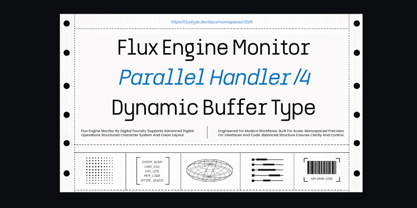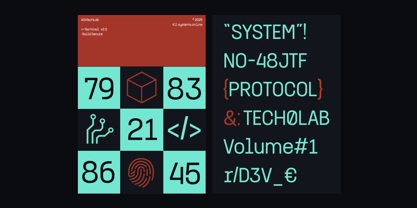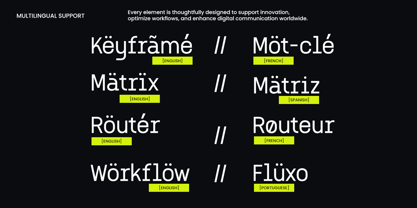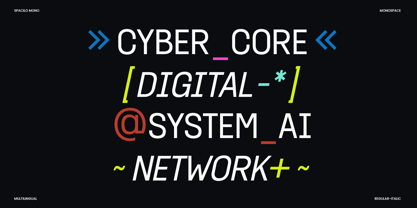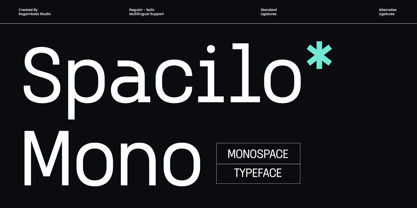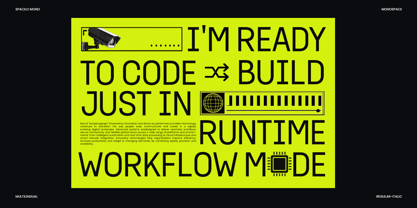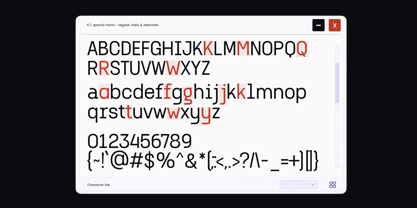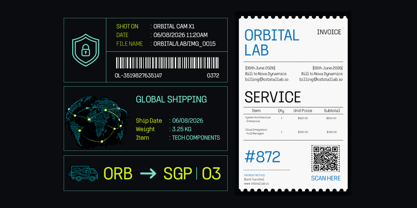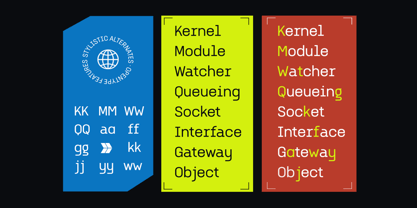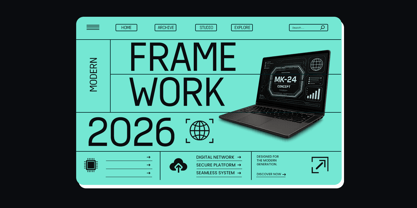
Spacilo Mono
Spacilo Mono is a contemporary monospace typeface crafted for designers, developers, and creative brands that demand precision with personality. Featuring clean geometric proportions, balanced spacing, and functional details, it delivers a modern coding aesthetic while remaining highly versatile for editorial and branding projects. The combination of Regular and Italic styles, multilingual support, and carefully designed standard and alternate ligatures creates a distinctive visual rhythm that feels both technical and refined.
Inspired by digital interfaces, terminal environments, and futuristic product design, Spacilo Mono performs beautifully across UI/UX layouts, startup identities, technology presentations, websites, software dashboards, packaging, posters, magazines, and minimalist branding systems. Its structured appearance provides exceptional readability while adding a contemporary industrial character to every composition.
Whether you're building an AI platform, creating cyber-inspired graphics, designing modern publications, or developing a premium visual identity, Spacilo Mono offers the perfect balance between functionality and creativity. This typeface is ready for both print and digital projects, making it an essential addition to every modern designer's toolkit.
• Regular and Italic
• Stylistic Alternates
• Uppercase and Lowercase
• Number, Symbol, and Punctuation
• Multilingual Support